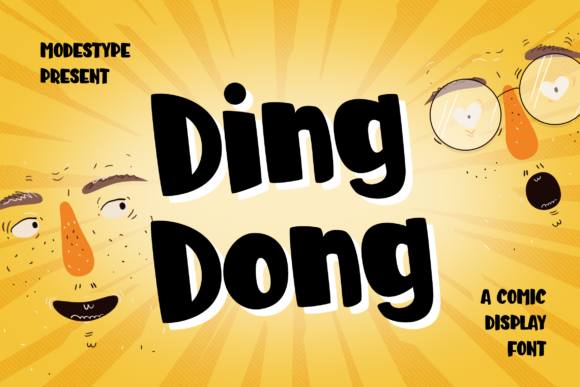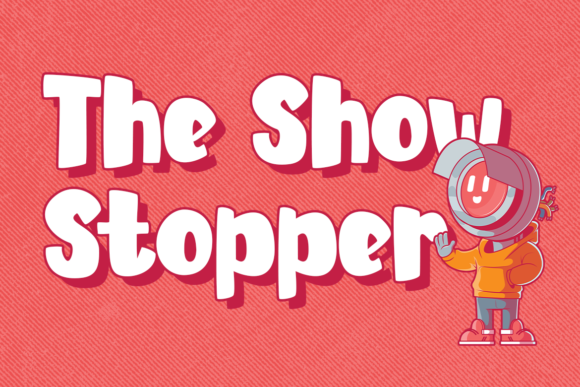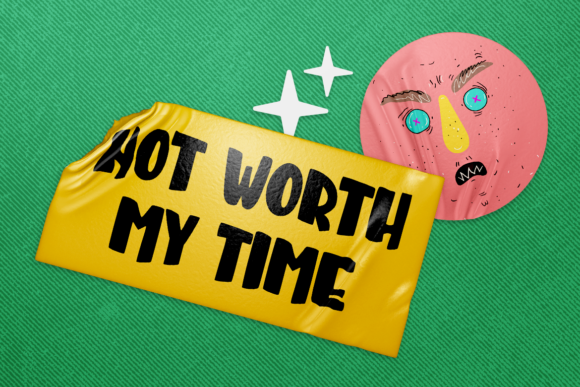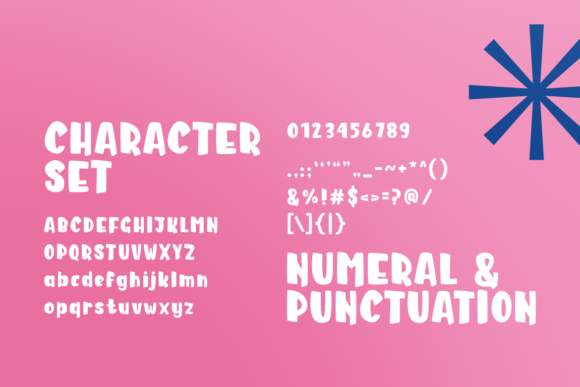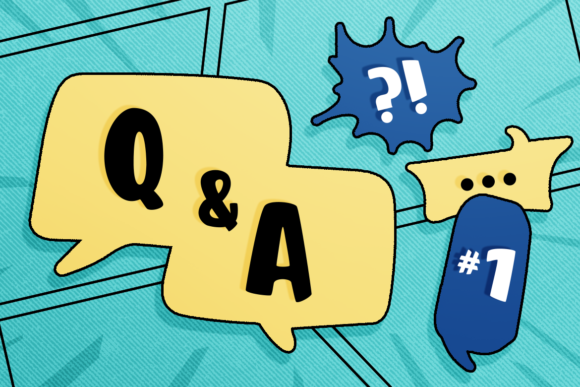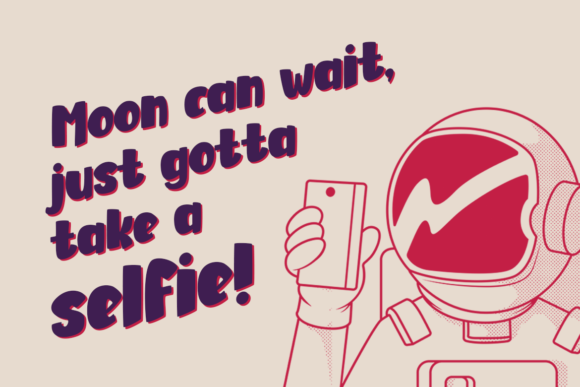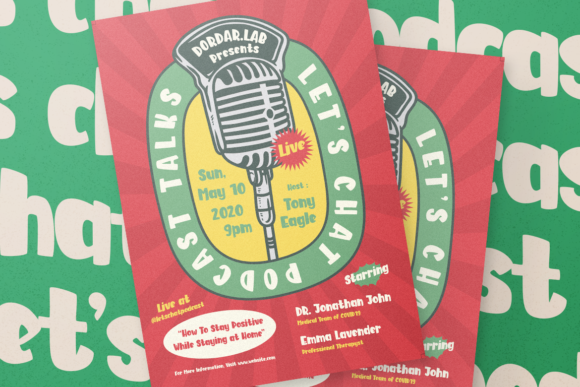
Discover the Joy of Ding Dong Font
Who hasn’t felt that rush of excitement when brainstorming a new creative project? The idea hits, and suddenly the world seems full of endless possibilities. It’s that spark of inspiration that drives us to create something truly special. For designers, finding the perfect font can be the key to unlocking that magic. Enter the Ding Dong Font – a cool, chunky lettered display font that’s sure to bring a smile to your face.
This fun and playful font is perfect for cartoon designs, playful creations, or any project that demands a lighthearted touch. Whether you’re designing a children’s book, a video game, or a social media campaign, Ding Dong Font is sure to bring a sense of joy and whimsy to your work. And for designers, that’s priceless – a valuable tool in their creative arsenal that can make all the difference in bringing a project to life.
Ding Dong Font Key Features
- Font Style: Ding Dong is a bold, sans-serif font with a playful and energetic feel.
- Unique Characteristics: Ding Dong features a distinctive, rounded shape with a bold stroke width, making it perfect for headings and titles.
Ding Dong Font Review
Overall, I’d say the Ding Dong Font has some great qualities, but it also has some limitations that hold it back. ✨ Let’s start with the good stuff!
- Unique Character:** The Ding Dong Font has a distinct, playful personality that can add some much-needed whimsy to your designs.
- Good Legibility:** The font is clear and easy to read, even at smaller sizes.
- Wide Character Set:** The Ding Dong Font supports a wide range of characters, including accented letters and special symbols.
However, there are some issues that need to be addressed. ⚠️ Here are a few limitations I’ve encountered:
- Not Suitable for Large Text:** While the Ding Dong Font looks great at smaller sizes, it can become pixelated and difficult to read when enlarged.
- Limited Font Variations:** The font only comes in a few different weights and styles, which can make it feel a bit limited in terms of design possibilities.
Overall, I’d say the Ding Dong Font is a solid choice for designers looking to add some playfulness to their designs. While it’s not perfect, it’s a great option for projects where a lighthearted, whimsical feel is desired.
Tips: Use Ding Dong Font for creating eye-catching headings and titles. Experiment with different font sizes and colors to add visual interest.
Ding Dong Font is ideal for creating:
- Eye-catching headings and titles
- Custom graphics and illustrations
- Engaging presentations and documents
- Fun and playful designs
Alternatives to Ding Dong Font
Comparison to Ding Dong Font: While Ding Dong Font is playful and attention-grabbing, Playfair Display is more refined and elegant. Ding Dong Font is better suited for casual, playful designs, whereas Playfair Display is ideal for formal, high-end applications.
Comparison to Ding Dong Font: Great Vibes is more elegant and refined than Ding Dong Font, making it a better choice for formal designs. Ding Dong Font is more playful and attention-grabbing, while Great Vibes is more understated and sophisticated.